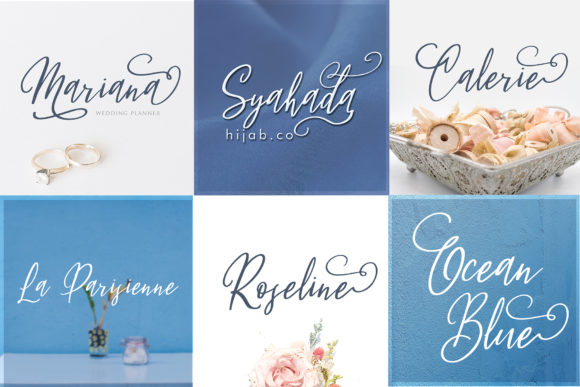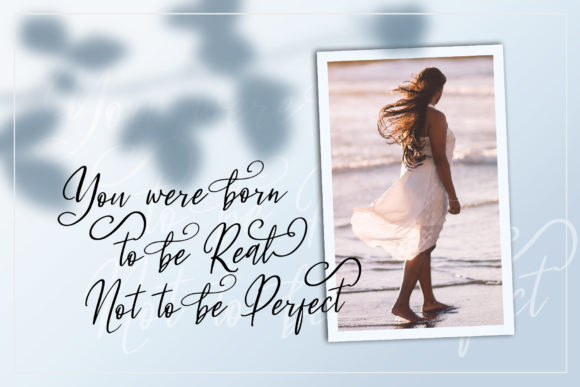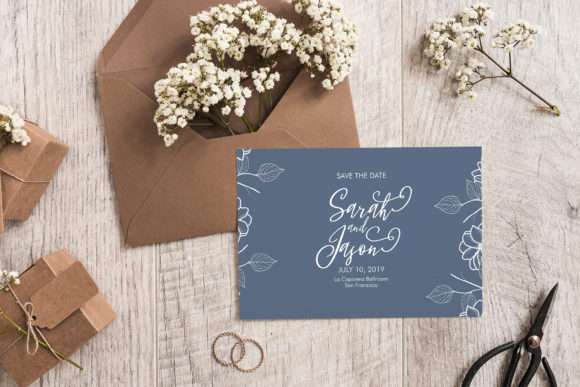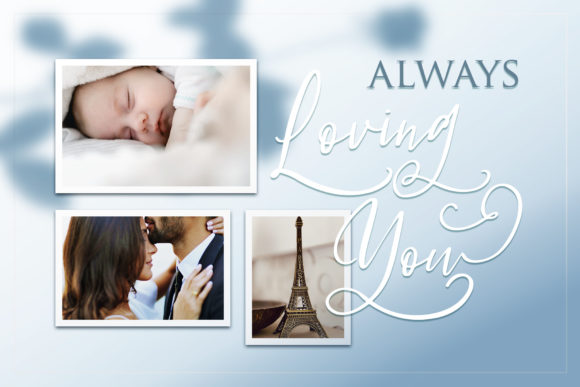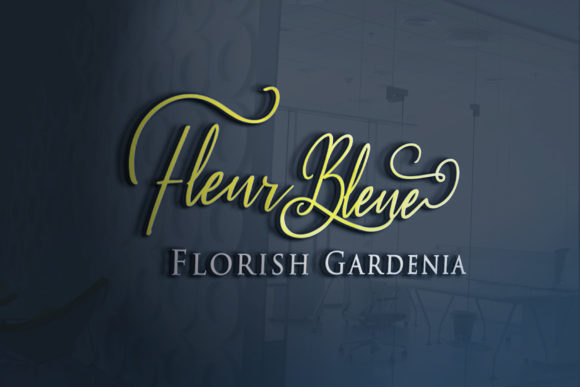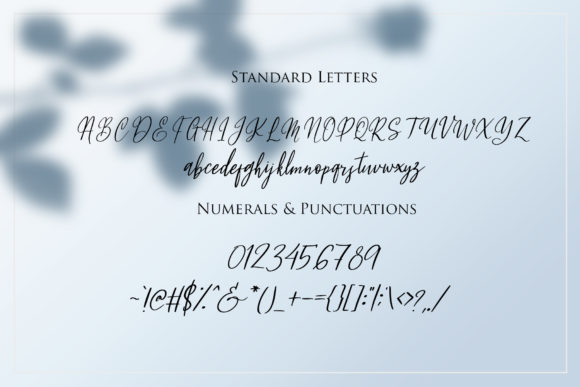
Fleur Bleue Font: Elevate Your Design with a Touch of Romance
In the world of typography, few fonts capture the essence of romance and elegance as beautifully as the Fleur Bleue font. This stunning script font is designed to add a bold yet sophisticated feel to any design project, making it a perfect choice for designers and crafters looking to infuse their work with a unique twist. In this article, we’ll delve into the characteristics of the Fleur Bleue font, its uses, and why it has become a favorite among creative professionals.
The Charm of Fleur Bleue
Fleur Bleue is more than just a font; it’s an expression of style and emotion. Its romantic and flowing script is meticulously crafted to bring a sense of luxury and refinement to your designs. Whether you’re working on a wedding invitation, a branding project, or a packaging design, Fleur Bleue can add that extra layer of sophistication that sets your work apart.
Key Features of Fleur Bleue Font
• Romantic and Stunning Script: Fleur Bleue boasts a beautiful, hand-crafted script that exudes elegance and charm. Its unique letterforms are designed to evoke a sense of nostalgia and romance, making it perfect for projects that require a personal touch.
• Bold Feel: Unlike some script fonts that may appear delicate or overly ornate, Fleur Bleue strikes a perfect balance between boldness and grace. This makes it highly versatile and suitable for a wide range of applications, from headlines to body text.
• Unique Twist: What sets Fleur Bleue apart from other script fonts is its distinctive flair and character. The font’s designer has carefully crafted each letter to ensure that it not only looks beautiful on its own but also in combination with other letters, creating a harmonious and visually appealing text.
Uses of Fleur Bleue Font
The versatility of Fleur Bleue makes it suitable for various design projects. Here are some popular uses:
• Wedding and Event Stationery: Create stunning wedding invitations, save-the-date cards, and event posters that set the tone for a romantic and memorable occasion.
• Branding and Logo Design: Use Fleur Bleue to add a touch of elegance to your brand’s identity. Its unique and memorable style can help your brand stand out in a crowded market.
• Packaging Design: Elevate your product packaging with a sophisticated and eye-catching font that reflects your brand’s personality and values.
• Digital and Print Media: Whether you’re designing a website, social media graphics, or print materials like brochures and flyers, Fleur Bleue can add a professional and stylish touch to your content.
Why Choose Fleur Bleue?
In a sea of fonts, Fleur Bleue stands out for several reasons:
• Quality and Craftsmanship: The font is designed with attention to detail, ensuring that it looks great in various sizes and applications.
• Ease of Use: Fleur Bleue is easy to read and works well in both digital and print formats, making it a practical choice for designers.
• Emotional Connection: The font’s romantic and elegant feel can help create an emotional connection with your audience, making your designs more impactful.
Fleur Bleue is a romantic and stunning script font that can add a unique twist to any design project. Its bold yet elegant feel makes it perfect for a variety of applications, from wedding stationery to branding and packaging design. With its high-quality craftsmanship, ease of use, and emotional appeal, Fleur Bleue is an excellent choice for designers and crafters looking to elevate their work. Discover the beauty of Fleur Bleue and let it inspire your next creative project.